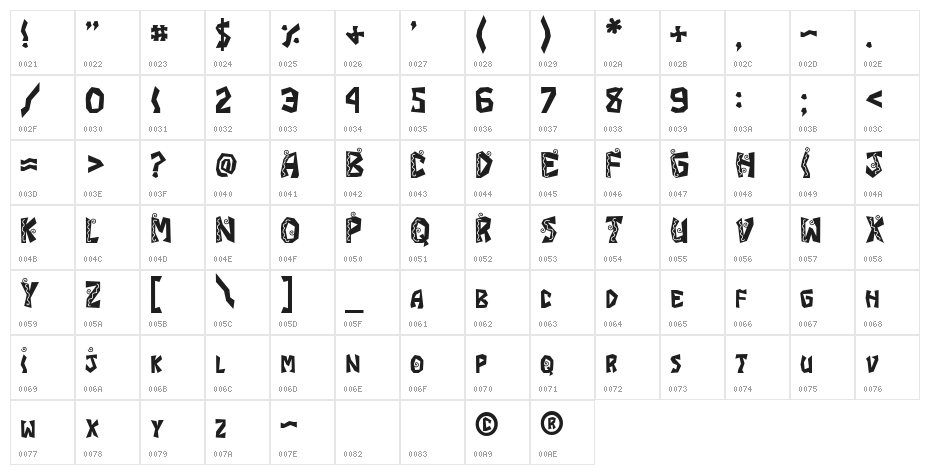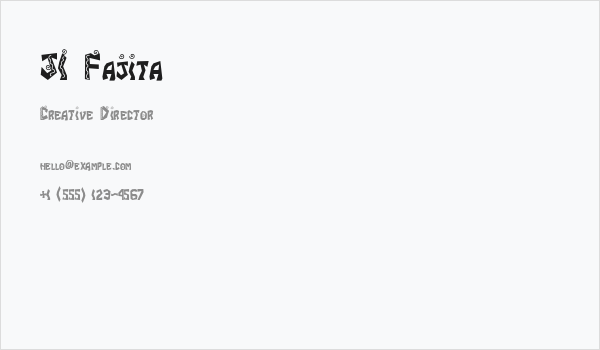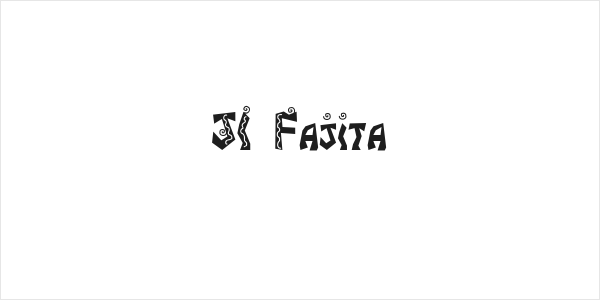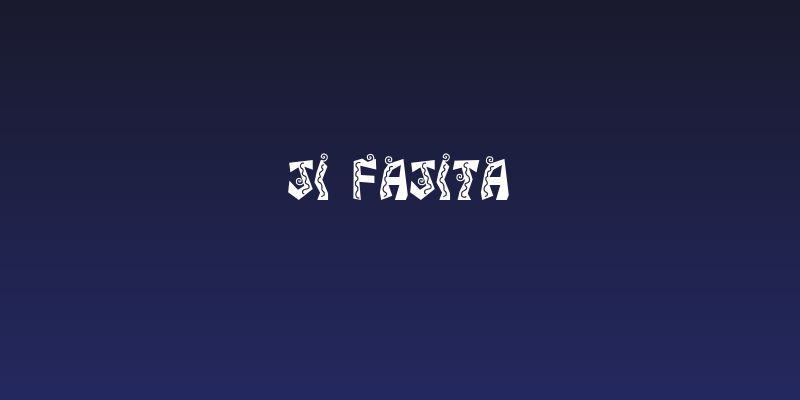
JI Fajita Font
JI Fajita Description
This font features a bold and playful design with a unique, quirky style. The uppercase letters are adorned with decorative elements like swirls and zigzags, giving them a lively and dynamic appearance. The lowercase letters maintain a similar playful aesthetic, with exaggerated angles and curves. The numbers are bold and consistent with the overall style, ensuring readability while maintaining the font's distinct character. Special characters are creatively designed, adding to the font's whimsical nature. This font is ideal for projects that require a fun and engaging visual impact.
| Overall Style | Playful, Quirky, Decorative |
| Proposed Projects | Ideal for children's books, party invitations, playful branding, and creative posters. |